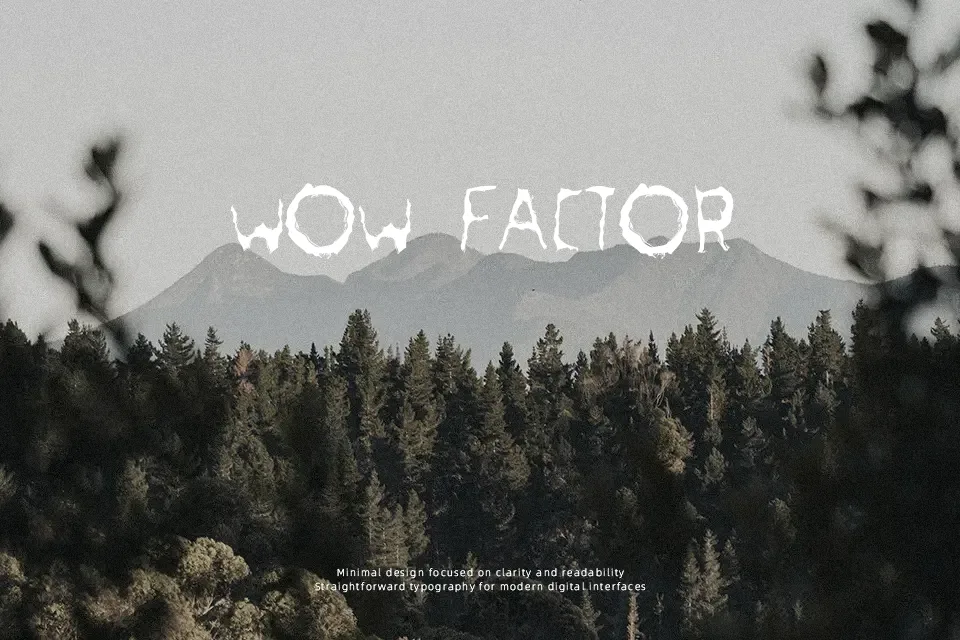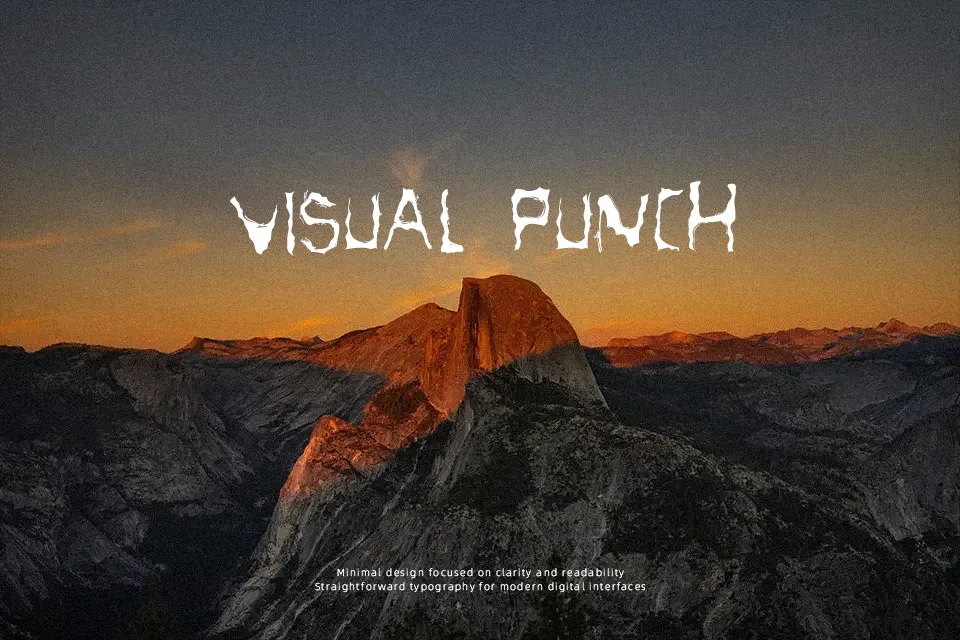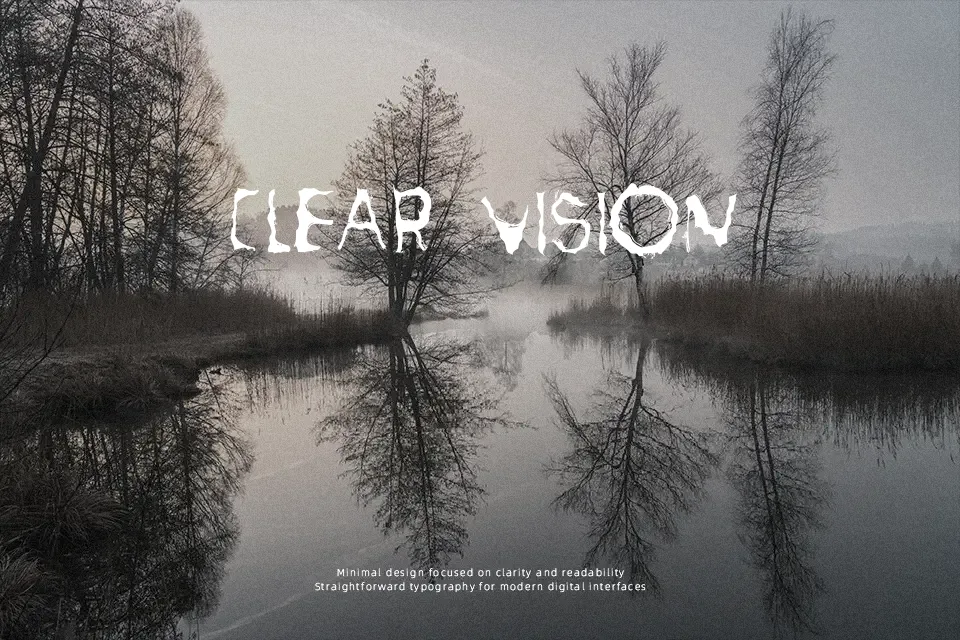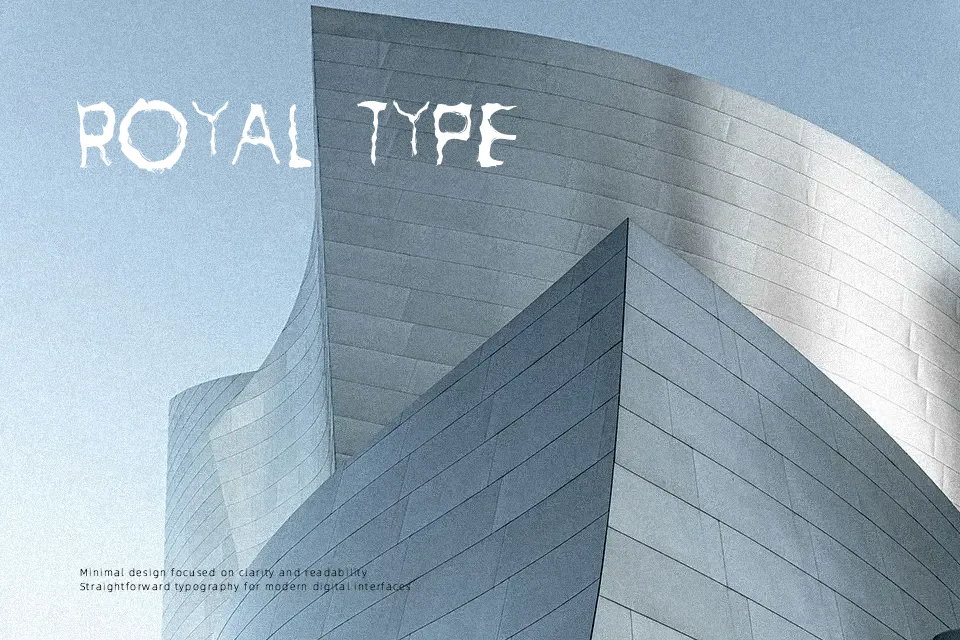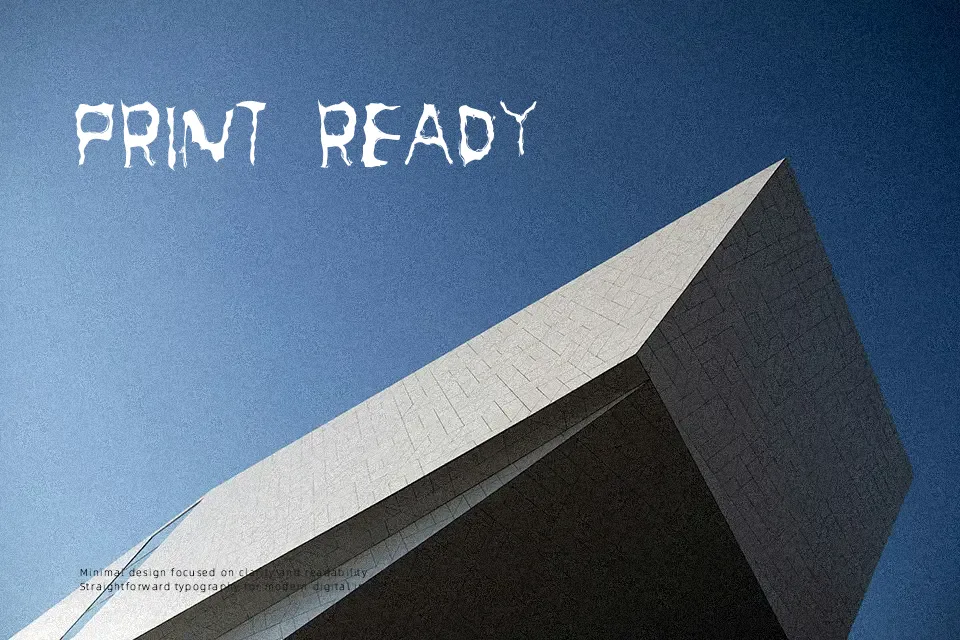
NightCola Font
Designed by Bumbayo Font Fabrik
NightCola presents heavily distressed letterforms with irregular contours, chipped segments, and jagged terminals that clearly push it into decorative, horror‑oriented display use. The strokes appear thick and uneven, with visible breaks and rough texture rather than smooth curves, giving each glyph a worn, corroded feel that stands out at larger sizes. Spacing feels relatively tight for such bold shapes, so characters cluster into dense word images that heighten impact but reduce comfort in longer reading. Proportions vary from character to character, reinforcing a chaotic rhythm that suits dramatic headlines more than orderly text layouts. The letterforms hold up best in large display settings, where the damaged detailing remains legible; at smaller sizes or in continuous paragraphs, the same texture quickly undermines clarity and makes extended reading tiring. Overall, the design works when you need a strong horror tone, but it is considerably less effective for functional or information‑heavy typography.
horror movie posters,haunted attraction signage,Halloween party flyers,dark themed game or music titles
long paragraph text,corporate or formal documents,small UI labels or captions,technical or data‑heavy layouts
Perfect for branding, gaming, and headline, with a creative and decorative style.